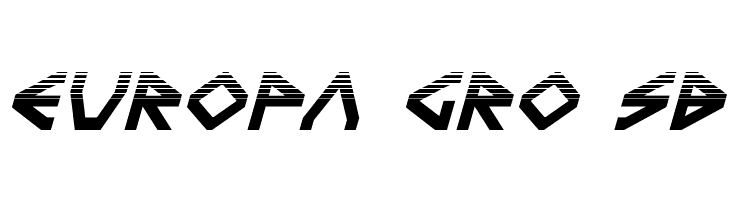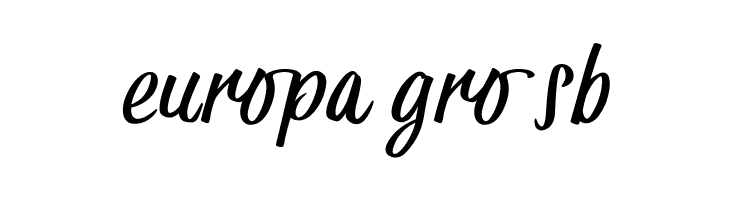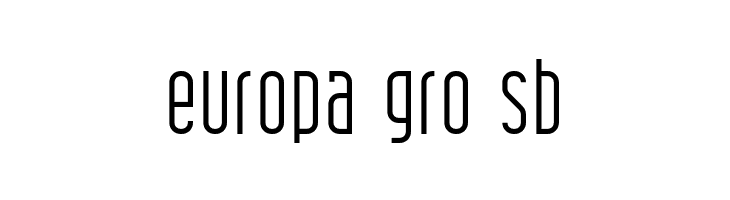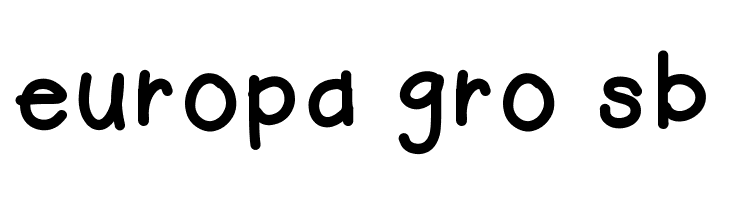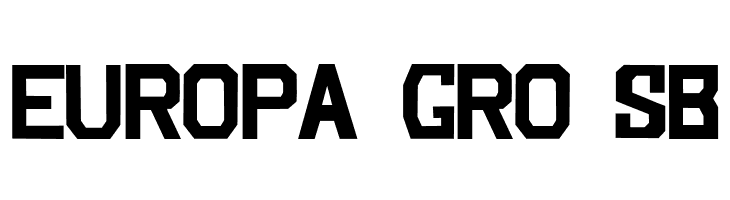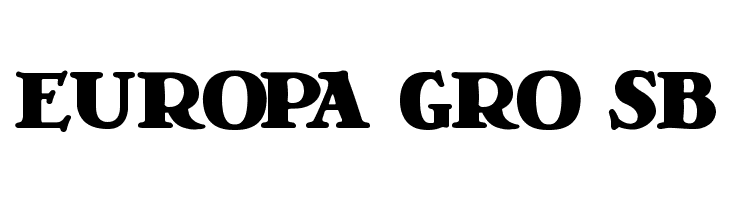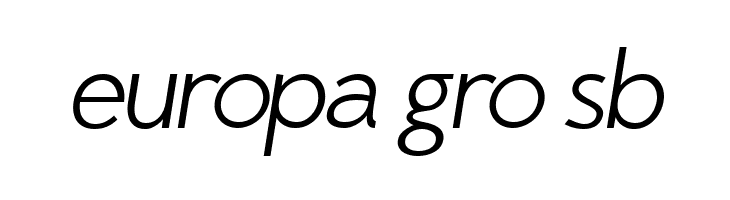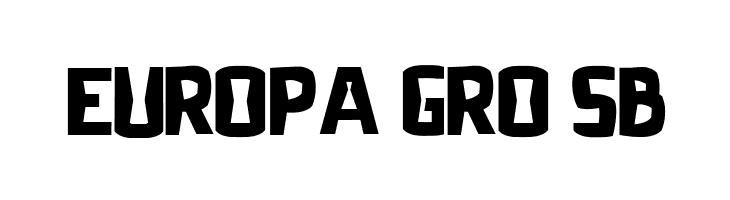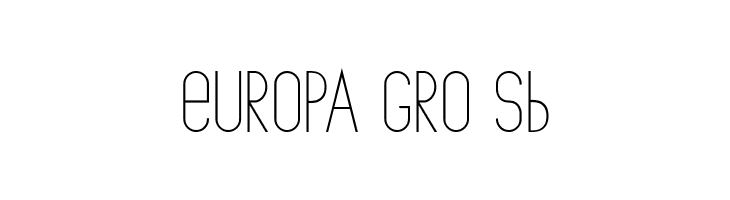
A bold, futuristic italic font with a halftone effect and geometric shapes.
( JOEBOB graphics - Joe vanderHam - www.joebob.nl )
A dynamic and elegant script font with flowing letterforms.
( Jacob King - www.typespace.co.uk )
A modern, narrow font with uniform stroke width and a sleek, elegant appearance.
( James Stone - www.behance.net/subversivetype )
A bold, gothic-style font with sharp, angular lines and pronounced serifs.
( Jen Jones - www.jenjonesfonts.com )
A playful, hand-drawn font with rounded, friendly characters.
( JibbaJabba Fonts - Jibba Jabba - pages.suddenlink.net/jasonarthur/ )
A bold, geometric font with angular, blocky characters.
( Lauren Thompson - www.nymfont.com/ )
A bold, serif font with dramatic strokes and high contrast, ideal for impactful headlines.
( Luke Ferrand - www.lukeferrand.co.uk )
A sleek, modern oblique font with a light weight and clean, minimalist design.
( MRfrukta - Alex Frukta - www.behance.net/MRfrukta )
A bold, geometric font with sharp, angular shapes for a modern look.
( Marcloud - www.marcloud-design.com )
A sleek, modern font with tall, narrow characters and a minimalist design.